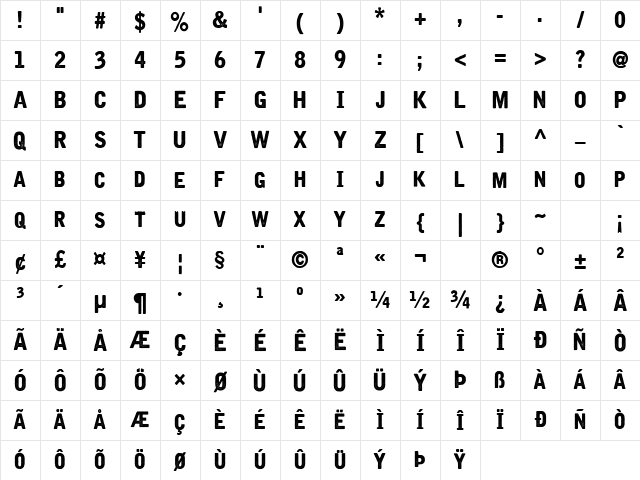
Iron & Brine Regular
Foundry: S. John Ross
Designer: S. John Ross
Design Context for Iron & Brine
Iron & Brine is a composed and adaptable typeface that performs quietly and consistently across a wide range of design contexts.
Pro Tip: Use Iron & Brine in both headline and body roles to test its range before committing to a single application.
Who designed the Iron & Brine Regular font?